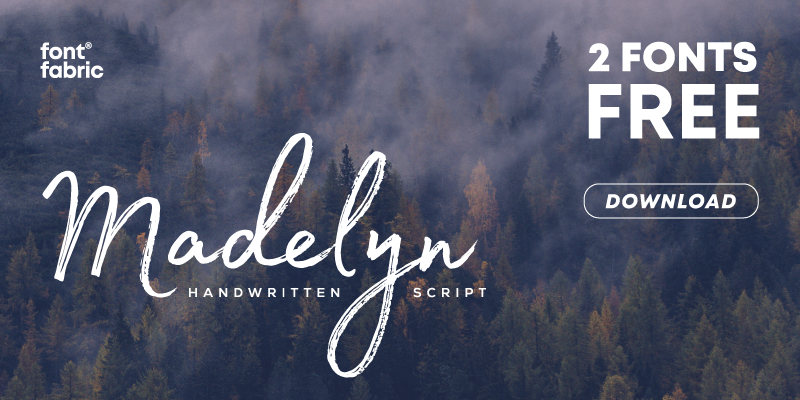
Madelyn is a handwritten script font based on the expression of real handwriting. Amiable and organic, it is perfect if you want to convey individuality and style. The Madelyn font is written with a calligraphy pen with casual dry strokes and a signature style. |